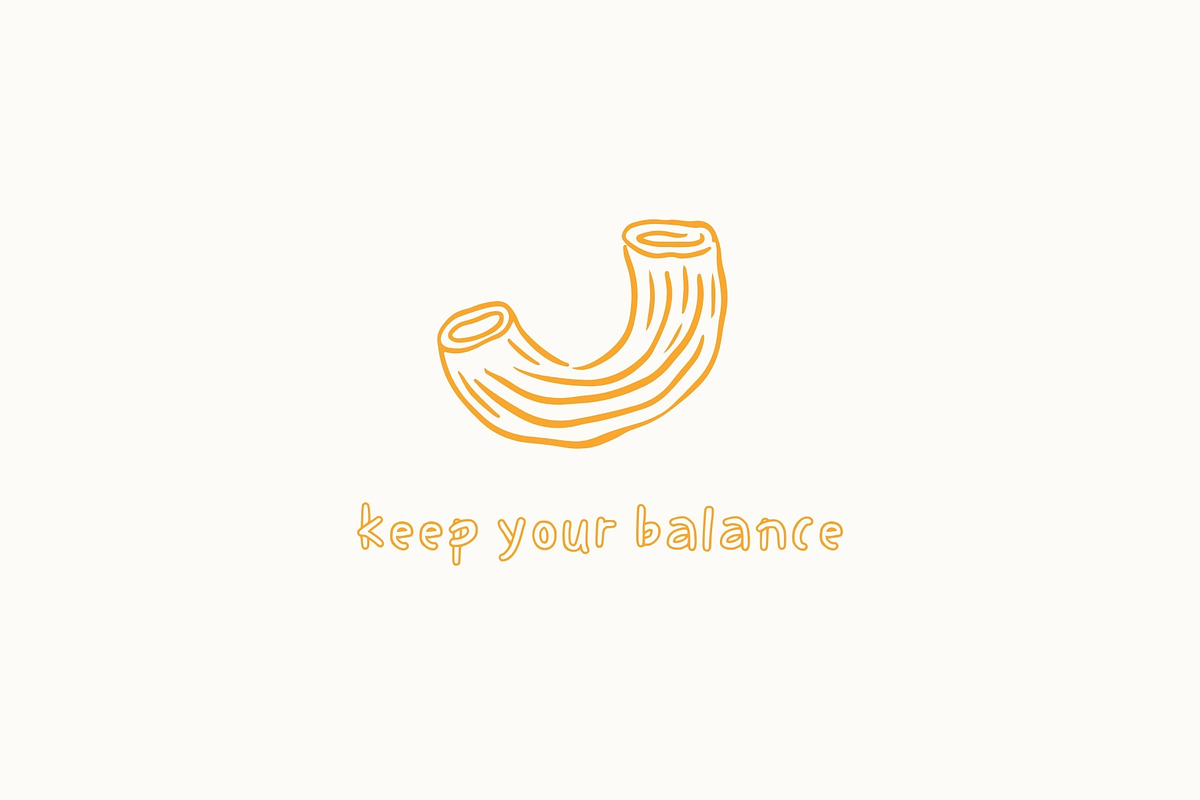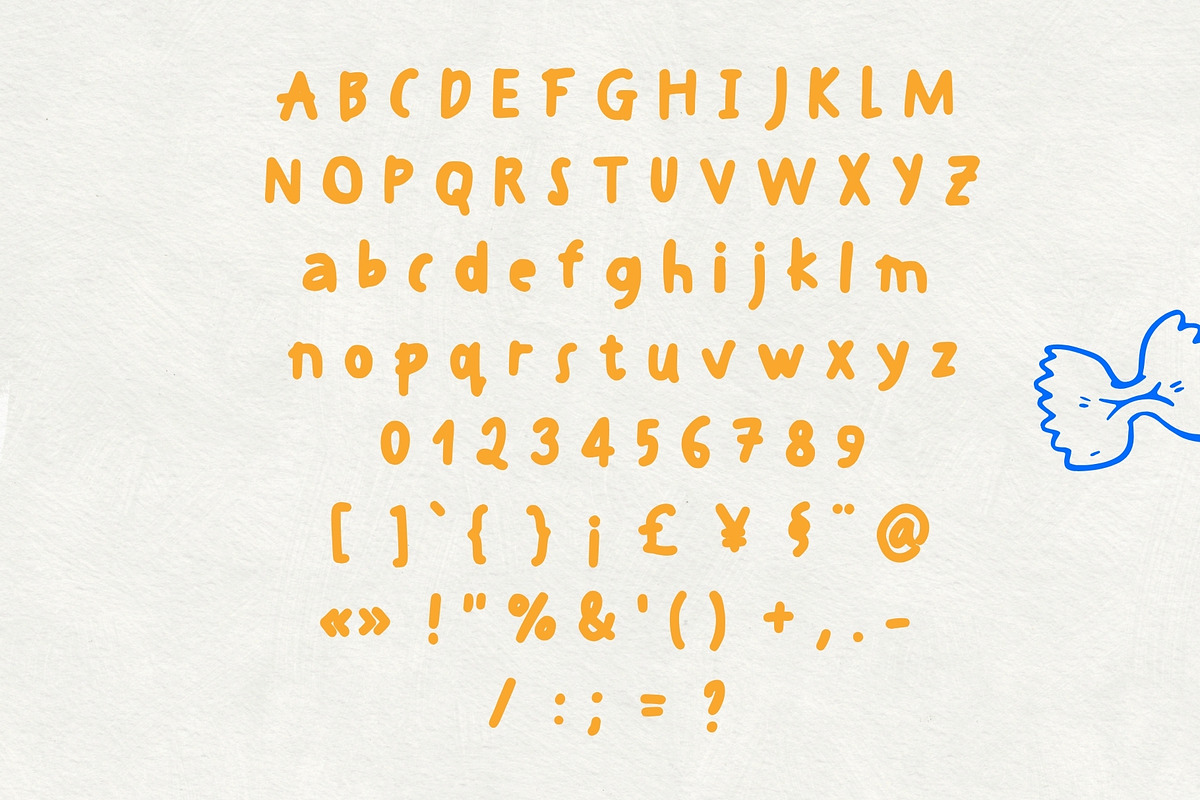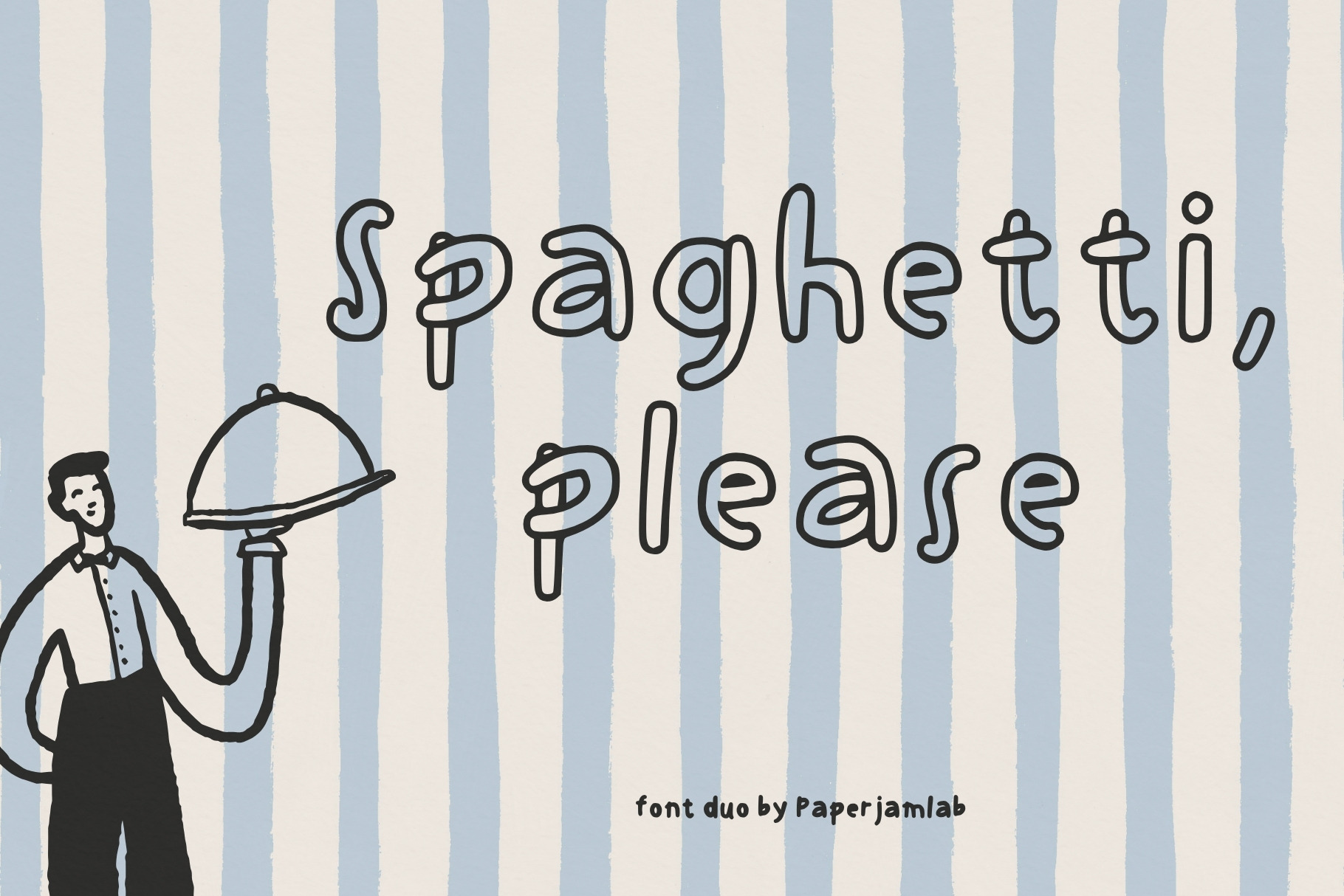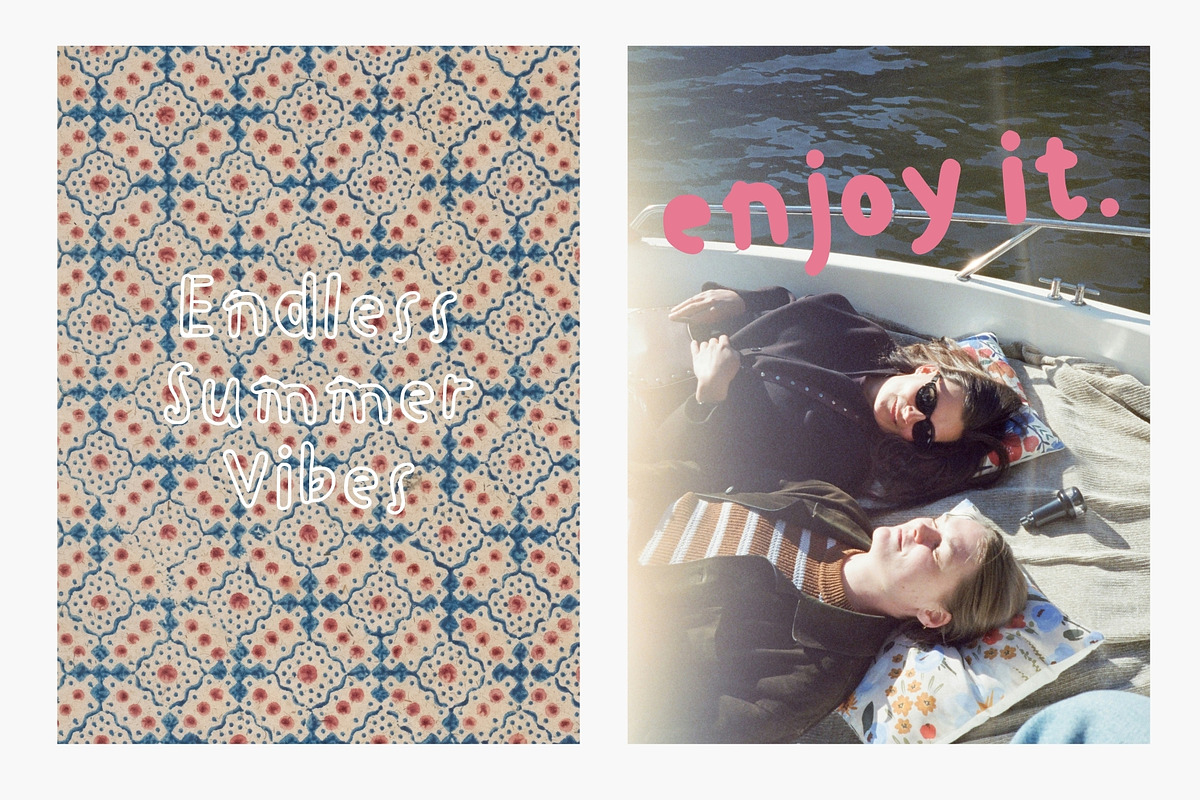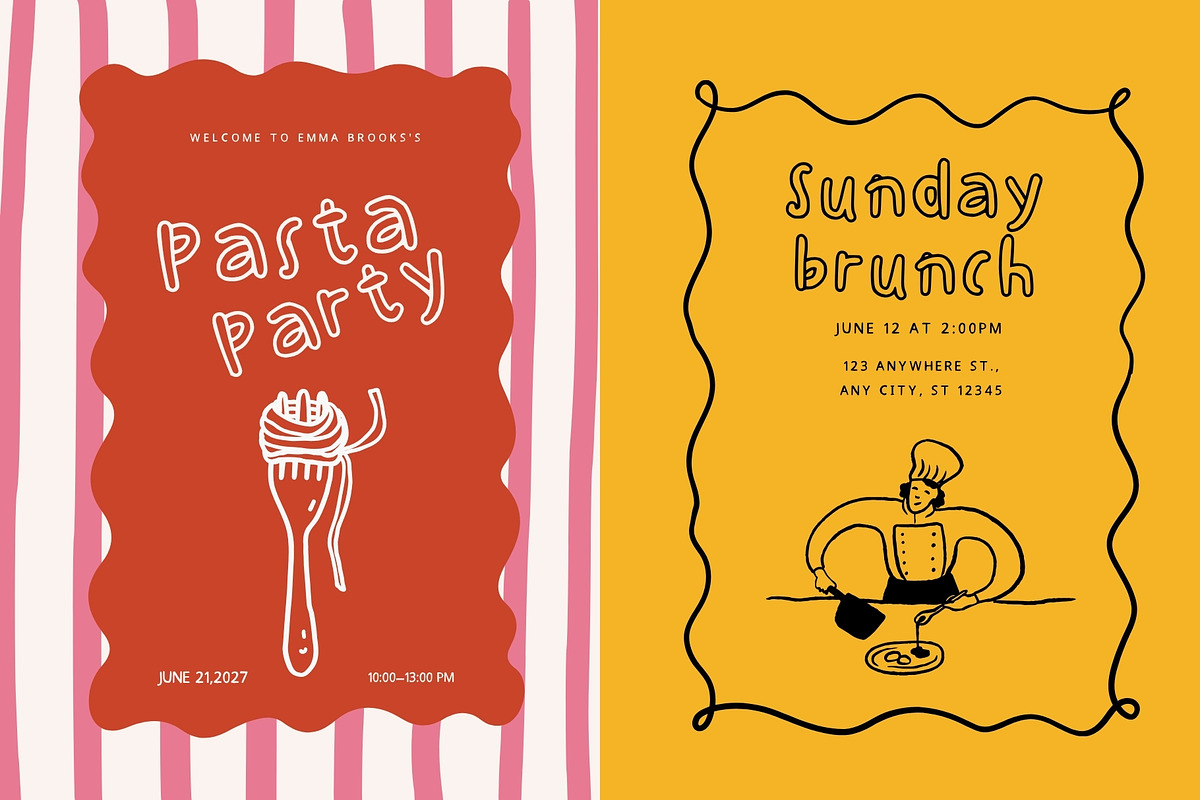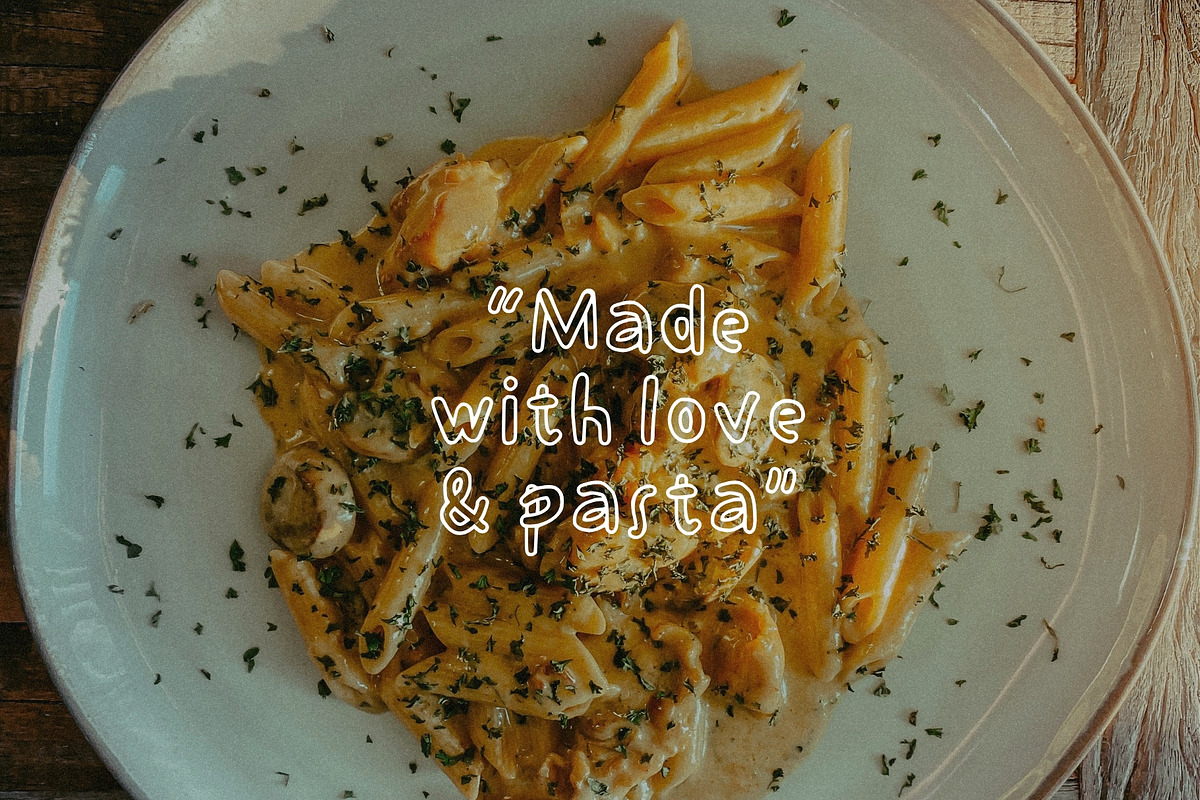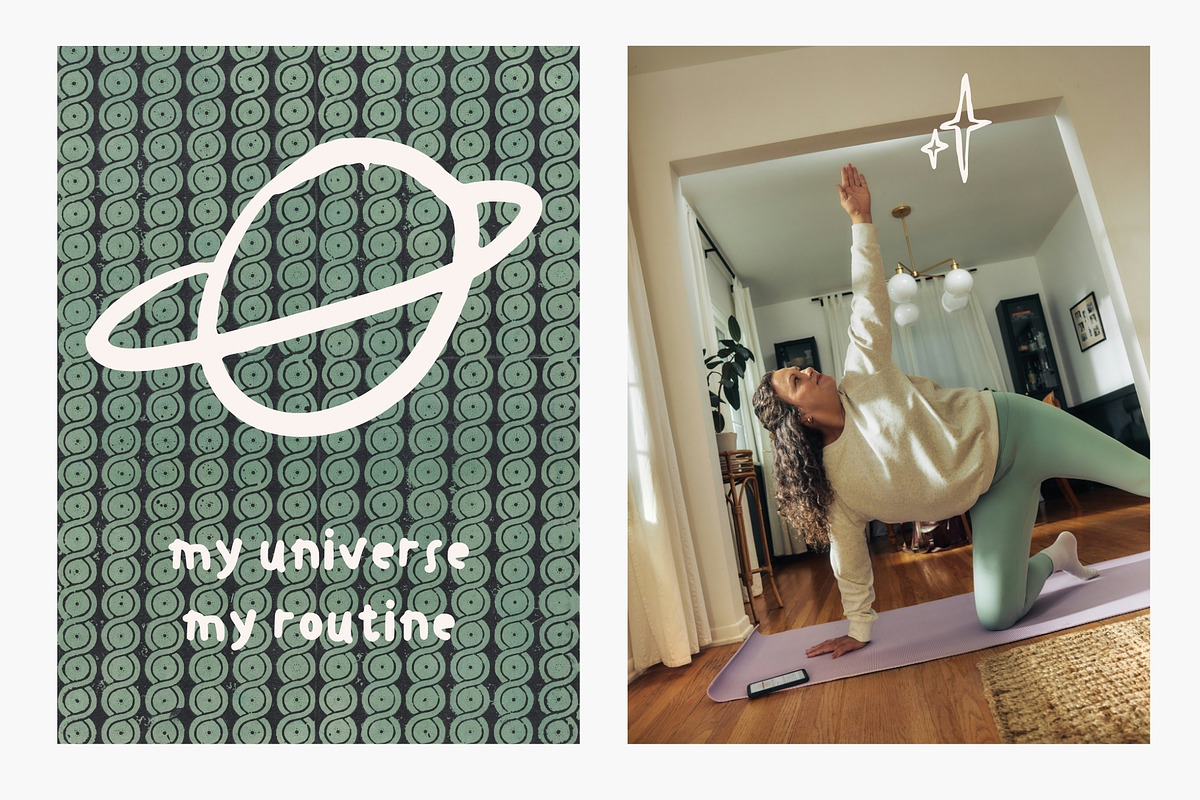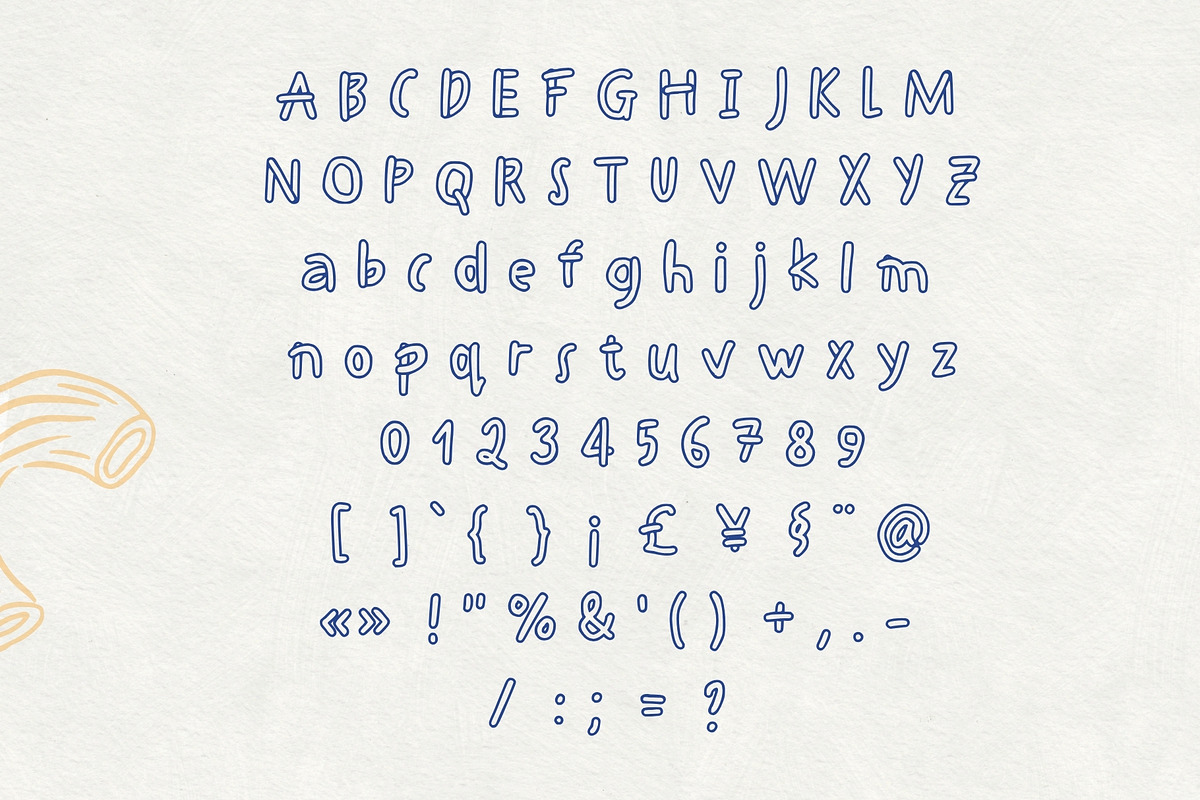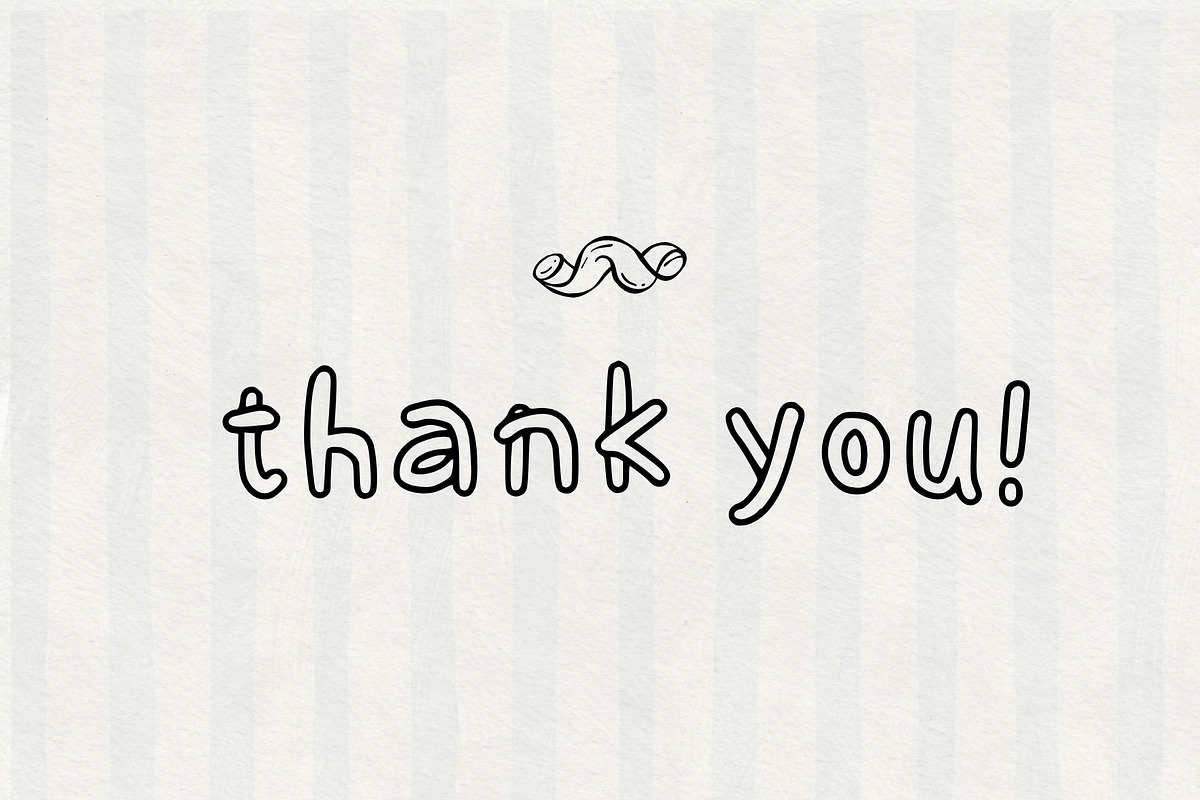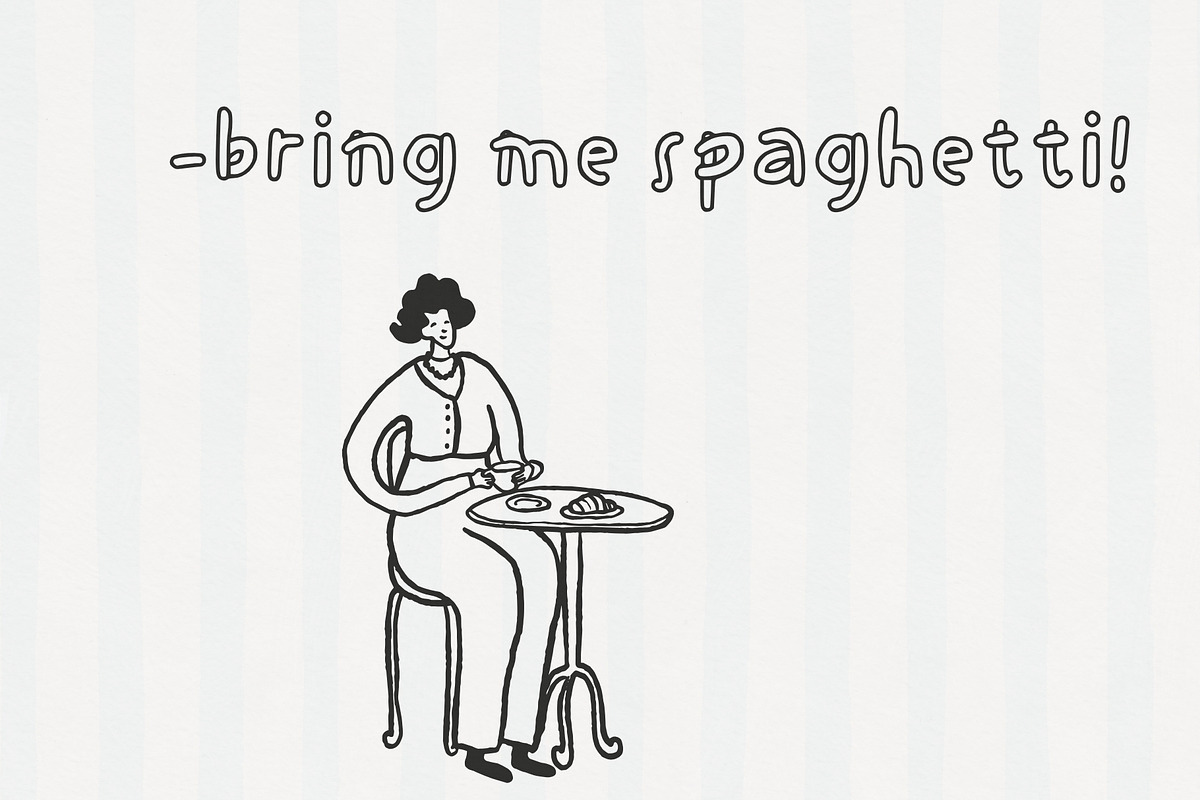
Spaghetti. Handwritten font duo
Meet Spaghetti Font Duo! It is a charming, handcrafted font pair designed to bring instant warmth, joy, and a playful rhythm to your creative projects!
With its organic, bouncy baseline and soft, rounded shapes, this duo captures a delightful, whimsical aesthetic. It features two perfectly balanced styles: Spaghetti Outline(a light, airy outline version that looks like a delicate fineliner sketch) and Spaghetti Full (a bold, solid, and juicy version that demands attention).
They are engineered to work flawlessly together, giving you an instant typographic hierarchy for titles, subheadings, and quote designs without the guesswork.
Branding & Packaging: Artisan food labels, eco-friendly packaging, cafe menus, and cute apparel.
Stationery & Crafts: Greeting cards, whimsical stickers, planners, and layered cut files for crafters.
Social Media: Eye-catching quotes, Pinterest graphics, and playful blog headers.
Complete English alphabet (Uppercase & Lowercase) and others
Numbers and essential punctuation marks
Playful, bouncy handwritten character with a modern organic feel